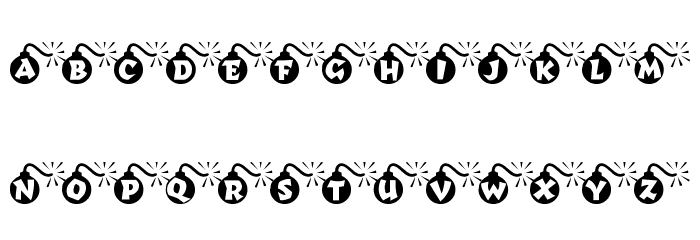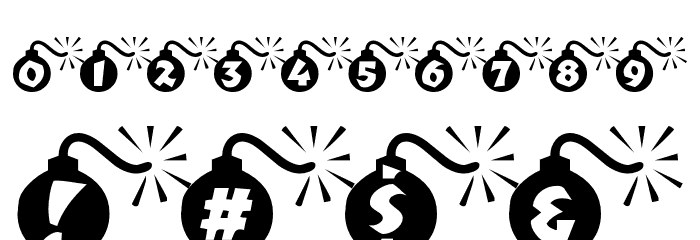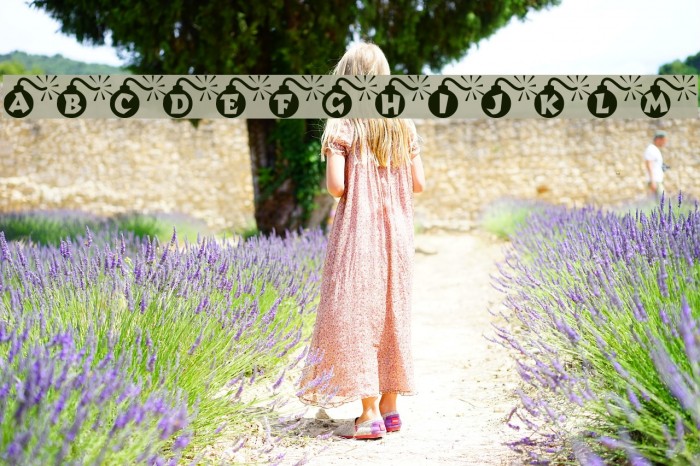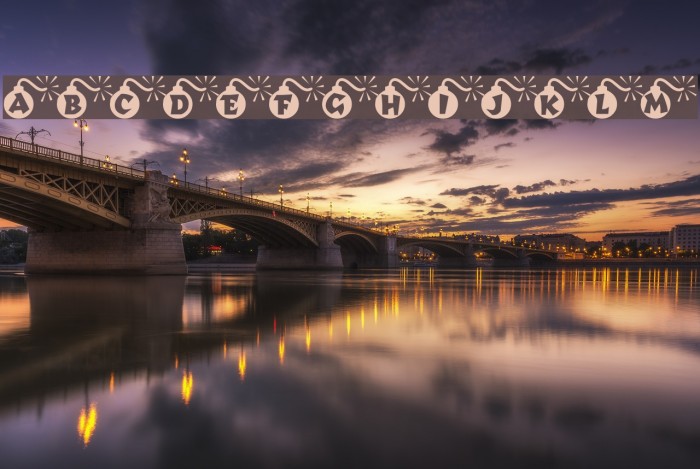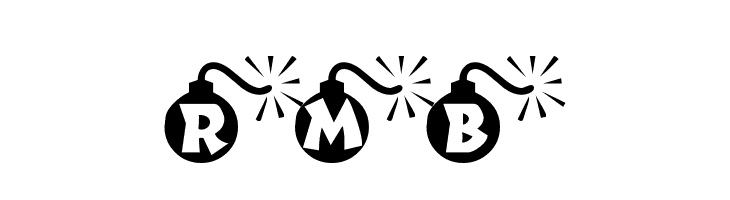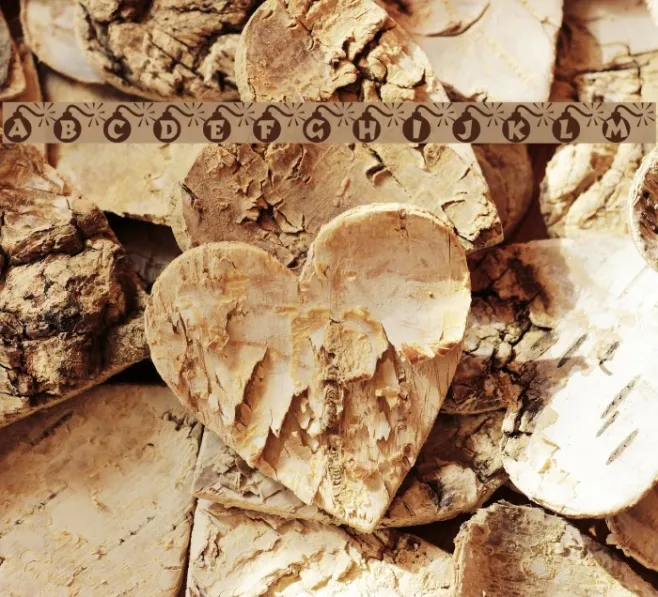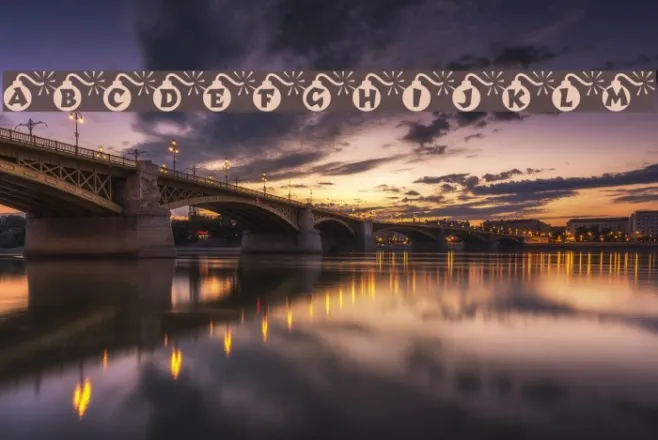
RMBomb Font
This font features a playful and explosive design, with each character encapsulated within a bomb shape. The letters and numbers are bold and clear, set against the backdrop of a stylized bomb with a lit fuse, adding a dynamic and energetic feel. The font is highly decorative, making it ideal for attention-grabbing designs. The consistent use of the bomb motif across all characters creates a cohesive and thematic appearance, perfect for projects that require a fun and impactful visual element.
A bold, bomb-themed decorative font with explosive character designs.
- Proposed Projects: Ideal for party invitations, comic book titles, video game graphics, and any project needing a playful, explosive theme.